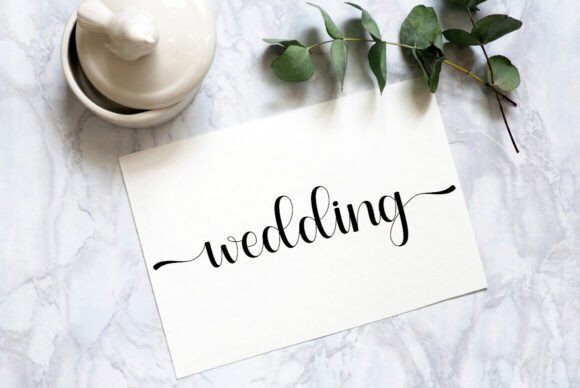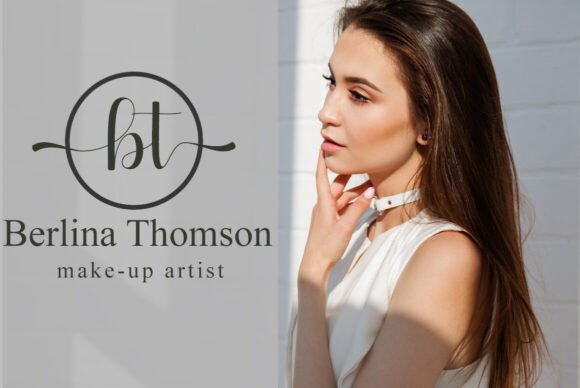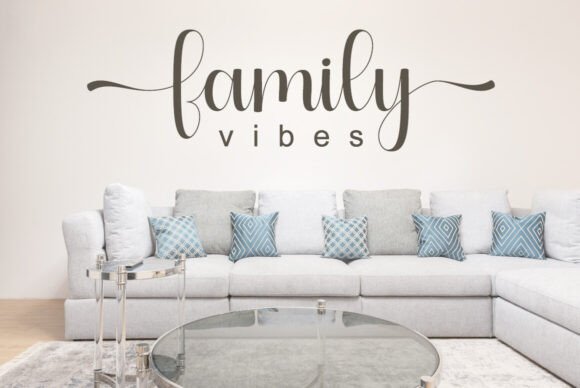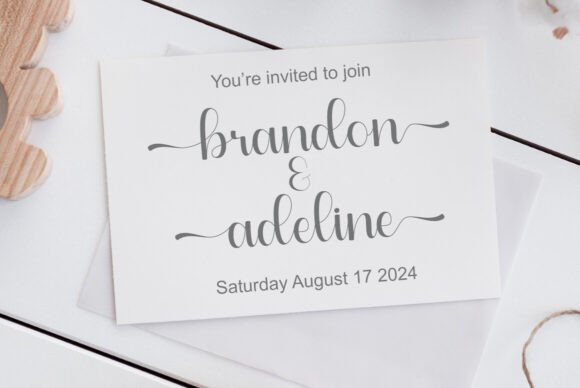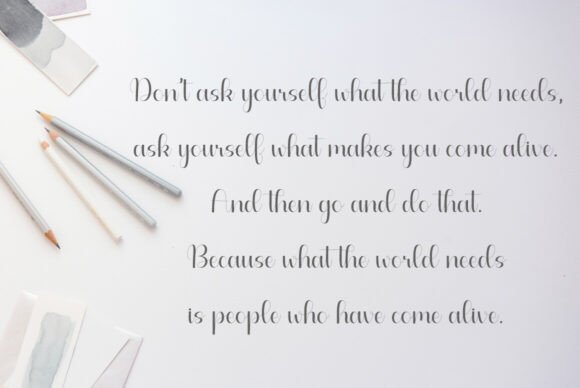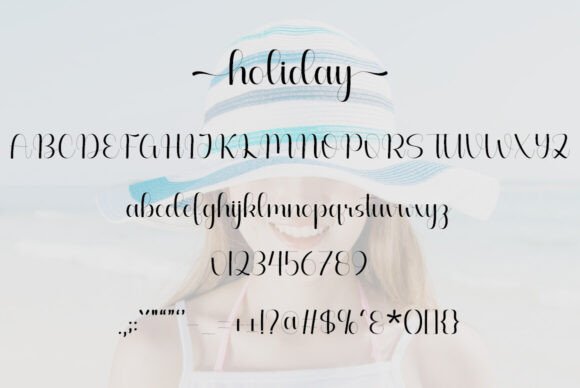
Adding a Personal Touch to Your Designs
Have you ever been browsing through a beautifully crafted wedding invitation and found yourself mesmerized by the elegant handwriting on it? That’s exactly what we’re going to talk about today – a font that can transport your designs to a world of sophistication and charm. The Holiday Font is a stunning handwritten font that adds a personal touch to any design, from wedding invitations to business cards.
As designers, we’re always on the lookout for unique and versatile fonts that can elevate our creations. The Holiday Font is a valuable addition to any designer’s toolkit, offering a range of stylish and elegant options for creating stunning designs. With its PUA encoding, accessing all the glyphs and alternates is a breeze, making it a must-have for any designer looking to add a handwritten touch to their work.
Holiday Font Key Features
- Unique Characteristics: Holiday Font features a unique blend of traditional and modern elements, making it perfect for designs that require a touch of nostalgia and elegance.
- Character Set: The font includes a wide range of characters, including uppercase and lowercase letters, numbers, punctuation marks, and special characters, ensuring that designers have everything they need to create visually appealing designs.
Holiday Font Review
Overall, I’m impressed with the Holiday Font’s attempt to capture the festive spirit of the season. ✨ Here are a few things that stand out:
- The font’s playful, handwritten feel adds a personal touch to holiday graphics and designs.
- The included ornaments and decorations are a nice bonus, providing a cohesive look for holiday-themed projects.
- The font’s versatility allows for a range of applications, from digital designs to print materials.
- The font’s aesthetic may be too casual for more formal holiday communications, such as business newsletters or invitations.
- The ornaments and decorations may not be easily customizable, limiting users’ ability to tailor their designs.
While the Holiday Font has its drawbacks, I appreciate its enthusiasm and potential for creative holiday projects. With some careful consideration of its limitations, this font can be a valuable addition to any designer’s toolkit.
Tips for Getting the Most Out of Holiday Font
To get the most out of holiday font, consider the following tips:
- Choose a font that matches the tone and theme of your design.
- Combine holiday font with other design elements, such as images and graphics, to create a cohesive look.
Common Use Cases for Holiday Font
Holiday font is commonly used in various design projects, including:
- Christmas cards and invitations.
- Holiday-themed social media posts and graphics.
- Seasonal advertising and marketing materials.
- Personal